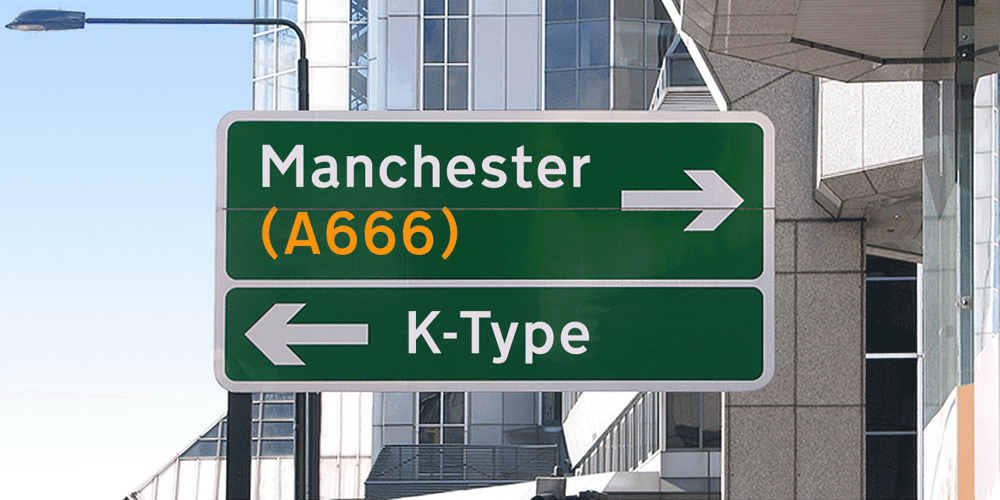
Transport New
Transport New font
Transport New Font Family was designed by Keith Bates and published by K-Type. Transport New contains 6 styles and family package options. Transport New is a redrawing of the typeface designed for British road signs. In addition to the familiar Heavy and Medium weights, Transport New extrapolates and adds a previously unreleased Light weight font originally planned for back-lit signage but never actually applied. Version 3.0 of Transport New features significant improvements including numerous outline and spacing refinements, and a full complement of Latin Extended-A characters. Also, to align Transport New with the 2015 release of Motorway, the other typeface used for UK road signage, Italic fonts for all three weights have been added. Originally designed by Jock Kinneir and Margaret Calvert beginning in 1957 and first published on the Preston bypass in 1958, the original Transport font has subtle eccentricities which add to its distinctiveness, and drawing the New version involved walking a tightrope between impertinently eliminating awkwardness and maintaining idiosyncrasy. The Grotesk roots of the glyphs were investigated and cheekily fine-tuned – uncomfortably close terminals of characters such as 5, 6, C, G, and e were shortened, the S and s were given a more upright aspect and their protruding lower terminals tucked in, overly wide glyphs like the number 4 were narrowed, and some claustrophobic counters were slightly opened up. The question mark was redesigned and parentheses given some stroke contrast. The x height was edged fractionally even taller. The Heavy font is actually more of a Bold, and the Light is pretty much a regular weight, but the original nomenclature has been retained for old times’ sake.